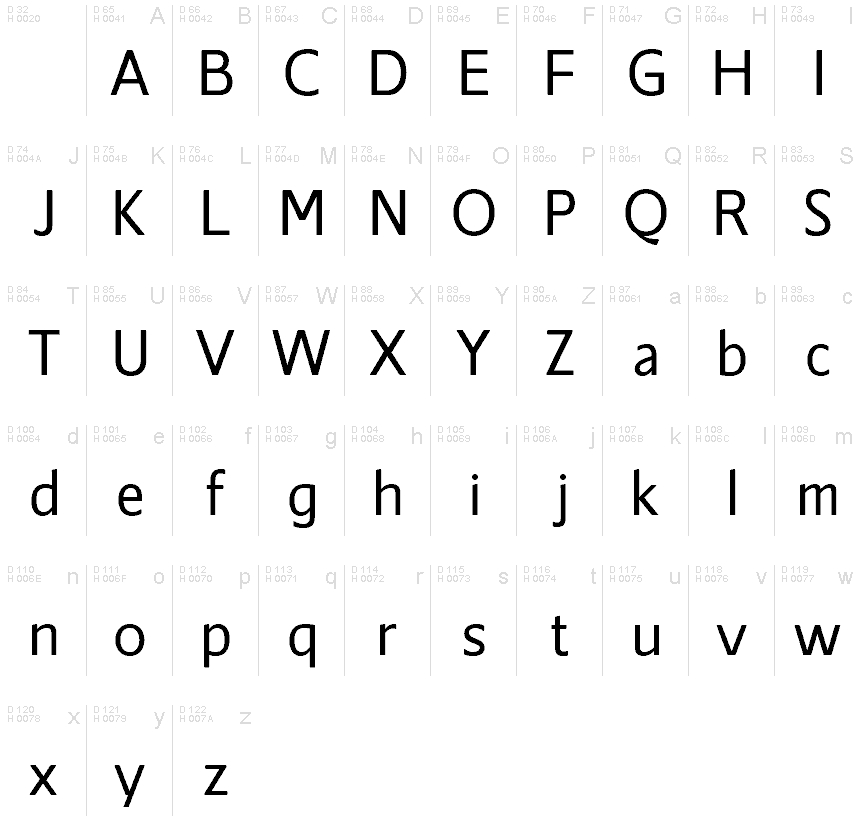
CS Cofa Regular Demo
CS Cofa font is a sans serif font by Craft Supply Co. with a clean aesthetic and sophisticated style. The modern design comes from its slight curvature which adds to the professional appearance that’ll showcase carefully any presented titles and texts. The visual allows for legible yet eye-catching projects whether the text is brief or long.
This free sans serif font can be used for designing magazines, newspapers, novels, essays books, posters, brochures, business cards, stationery designs, web pages interfaces and beyond. Use it freely in branding and advertising campaigns focusing on fashion houses or luxurious products too to see how CS Cofa instantly levels up your work!